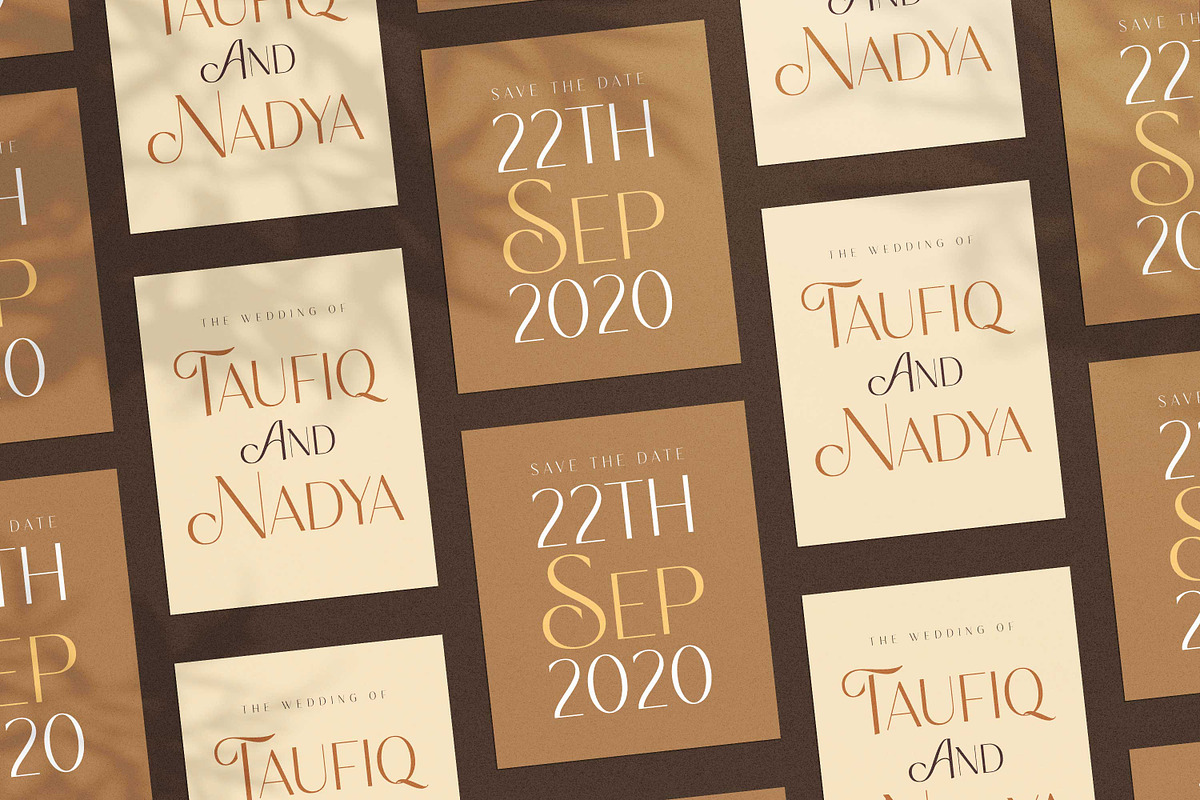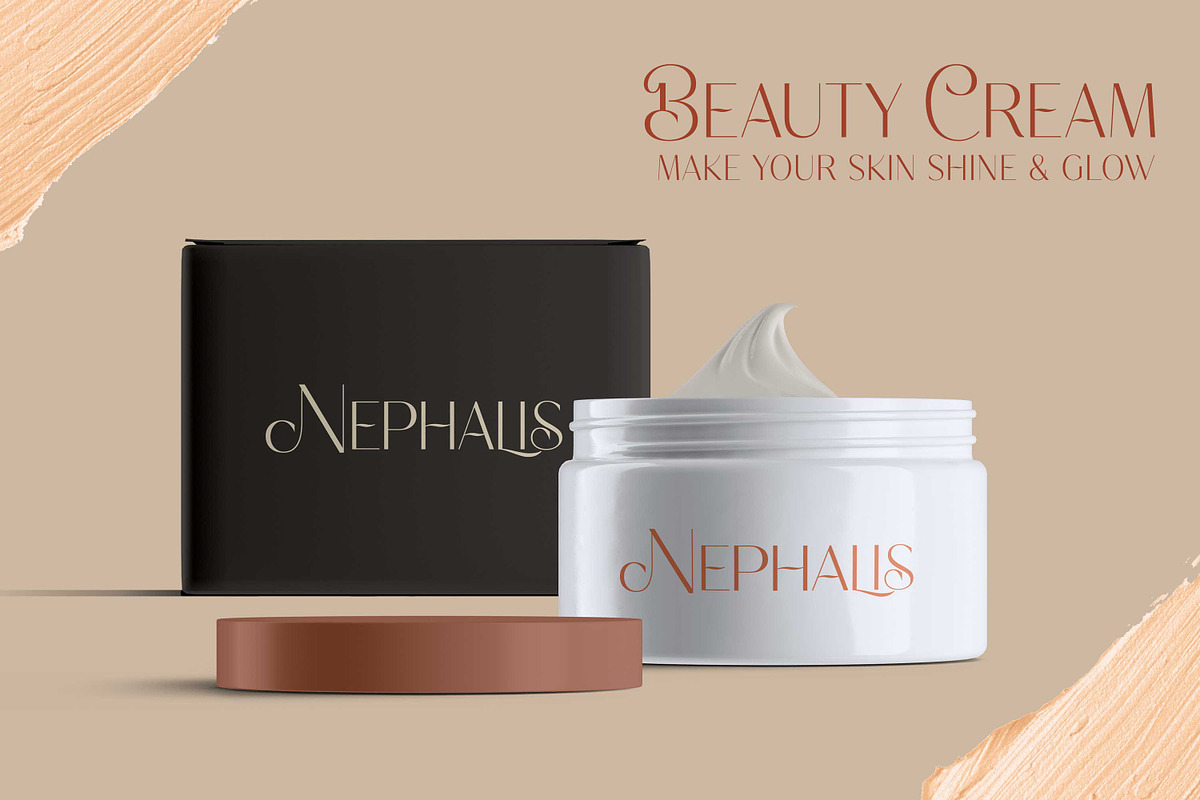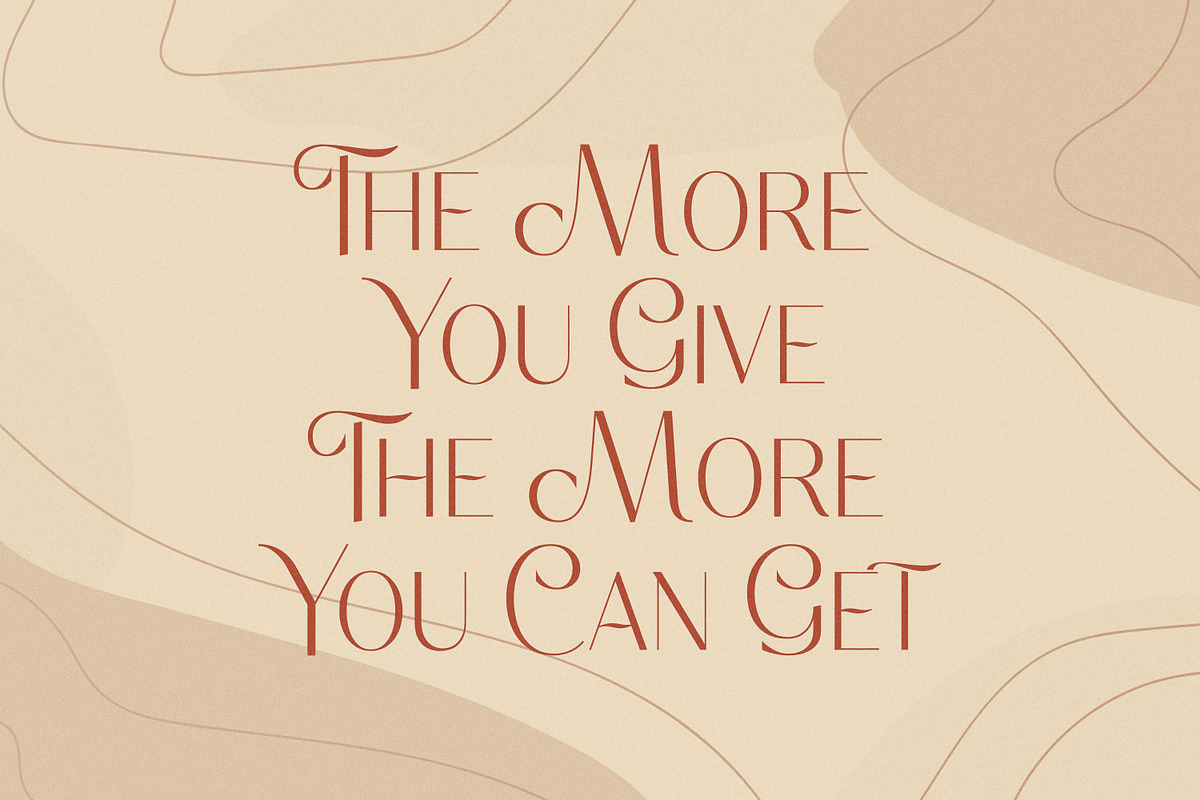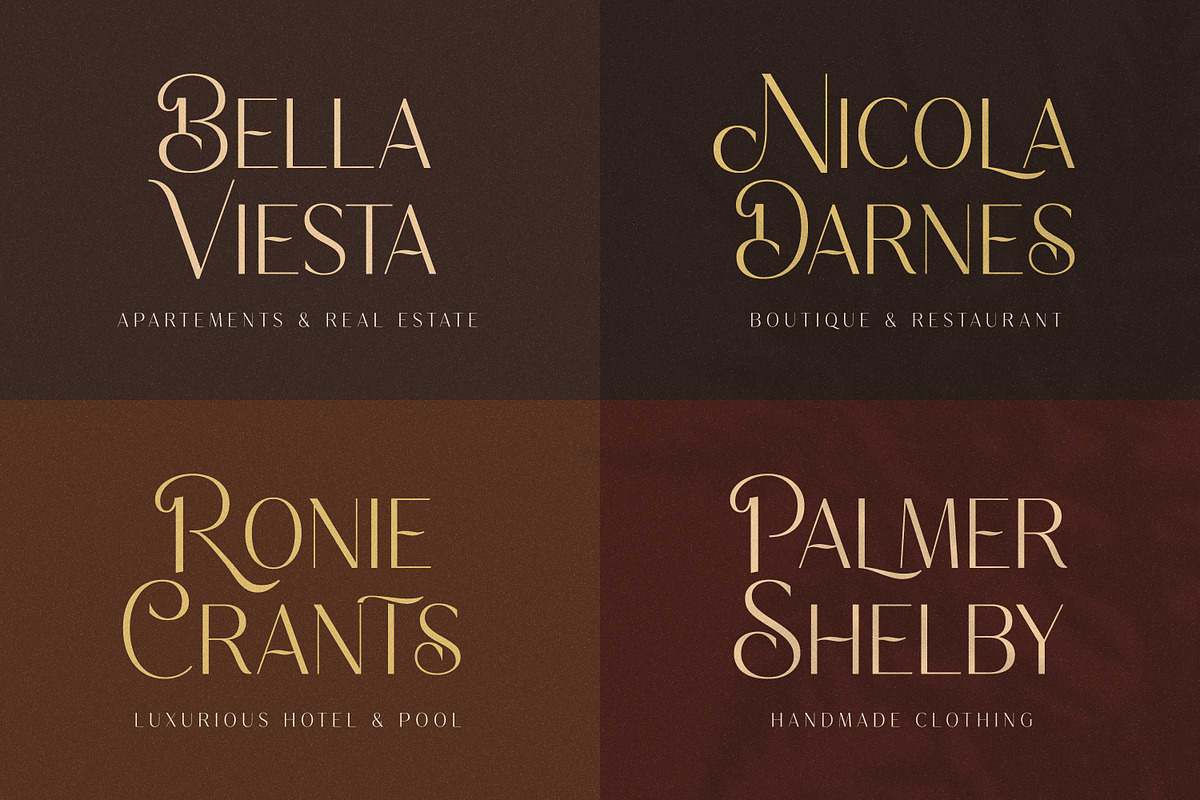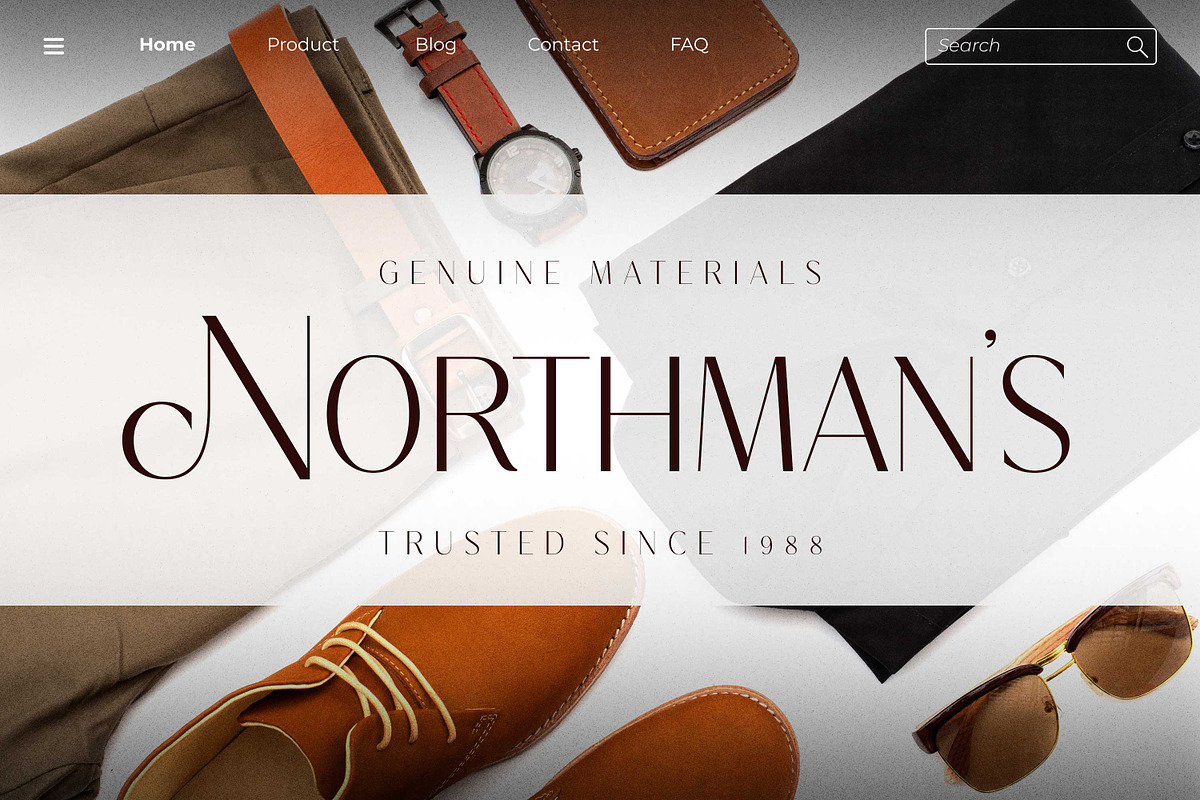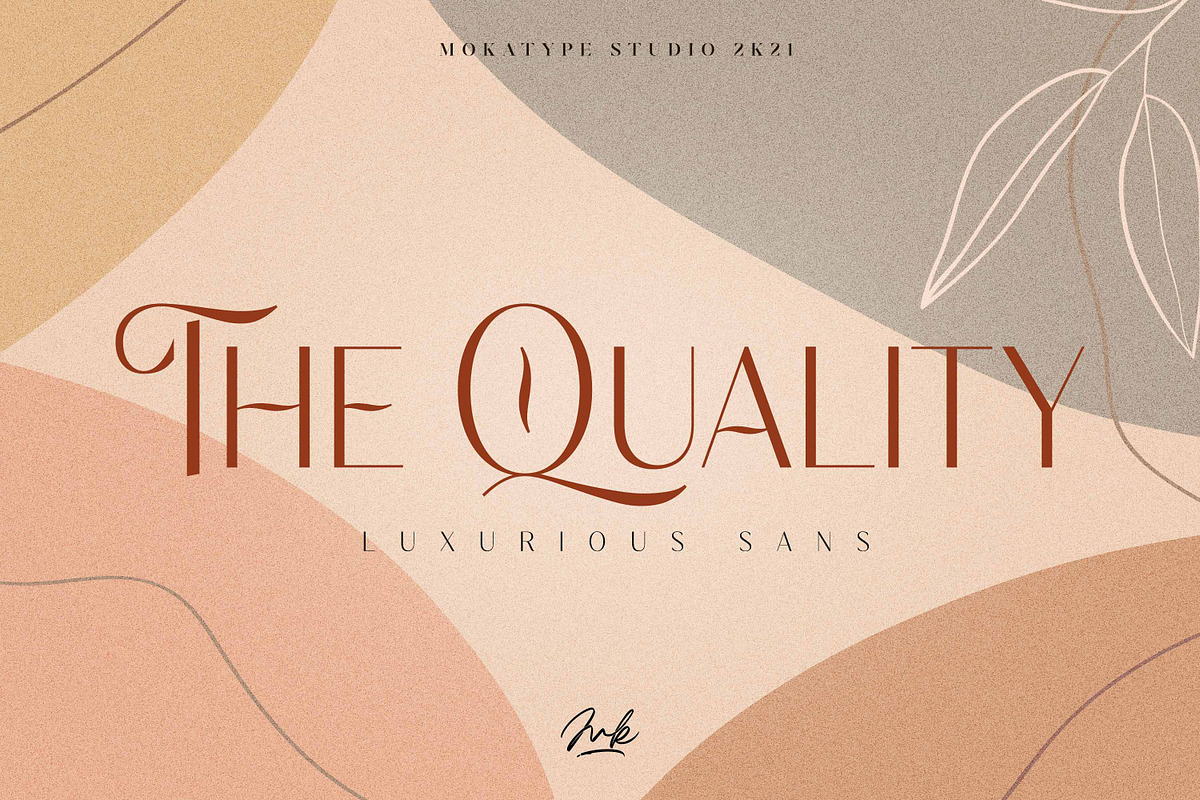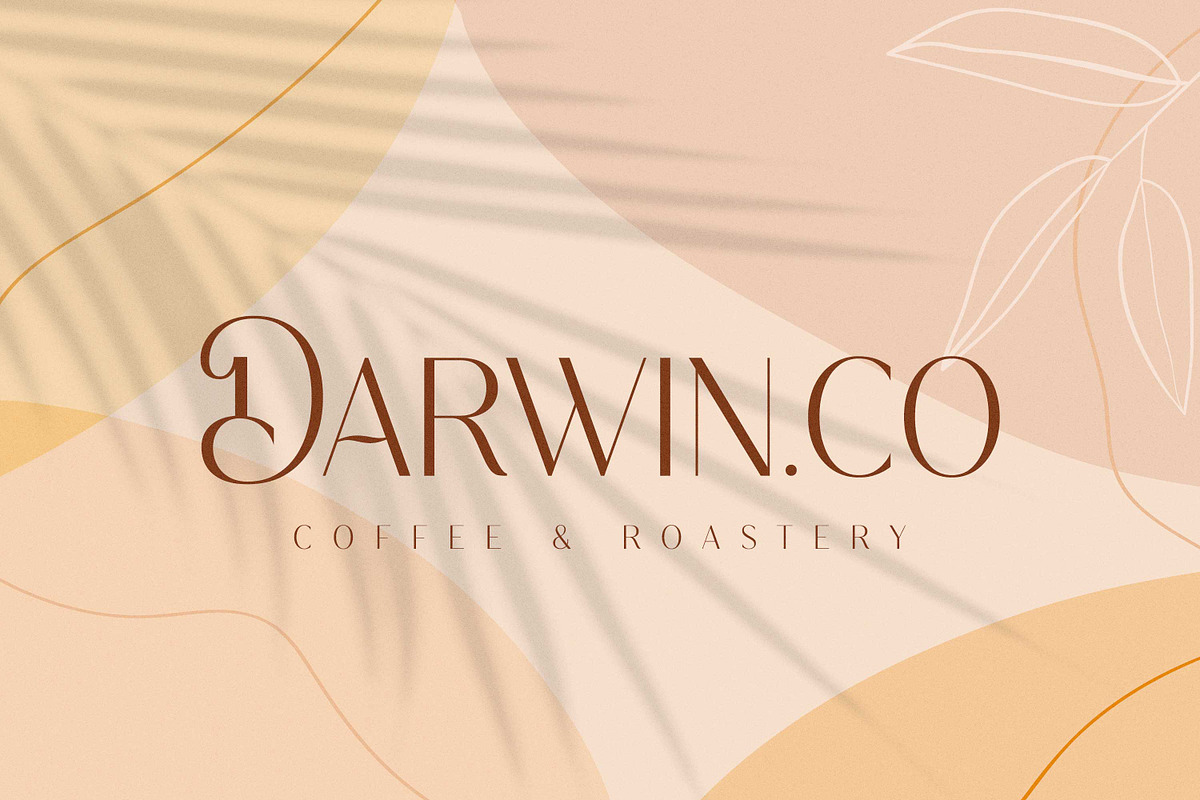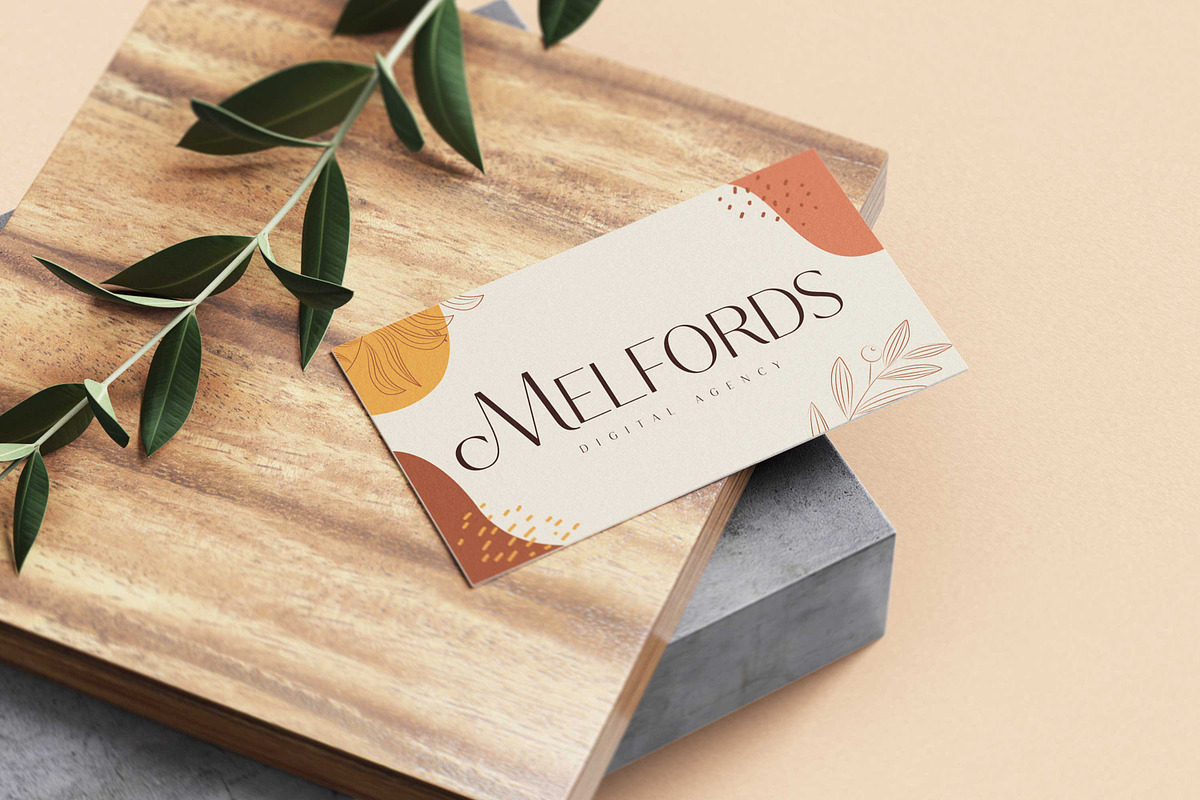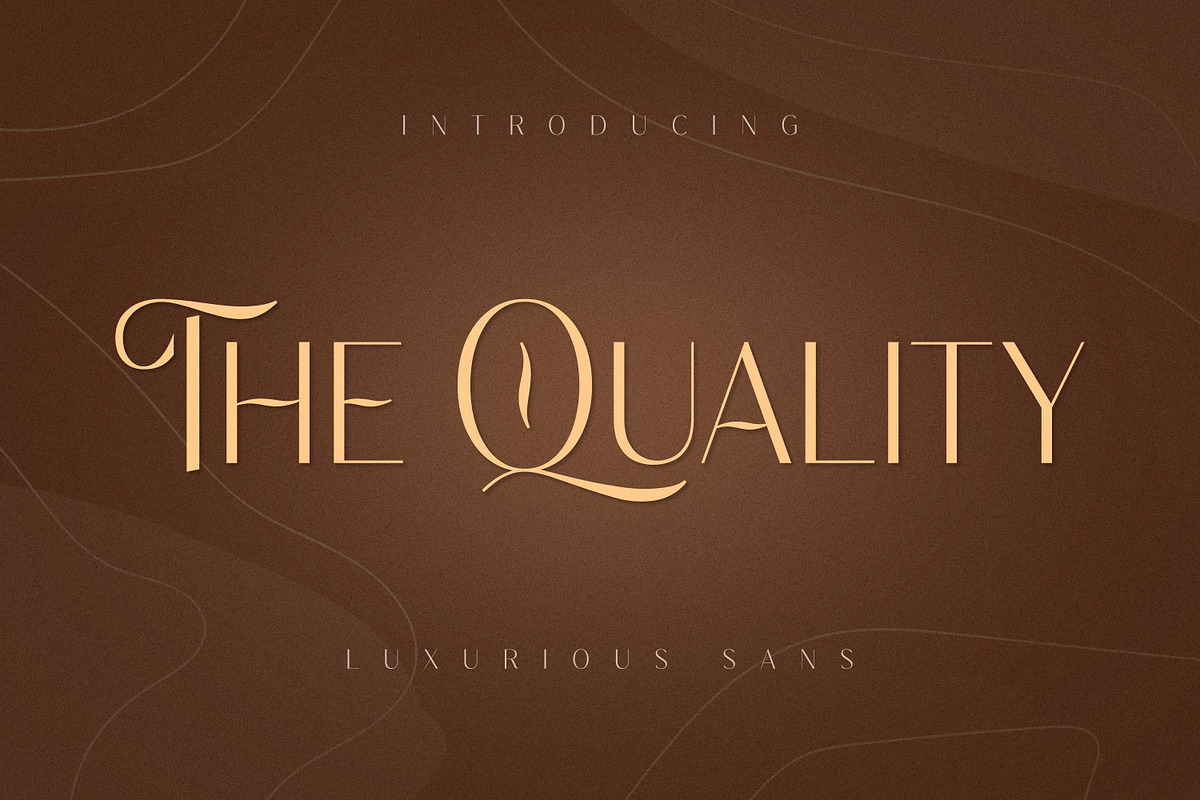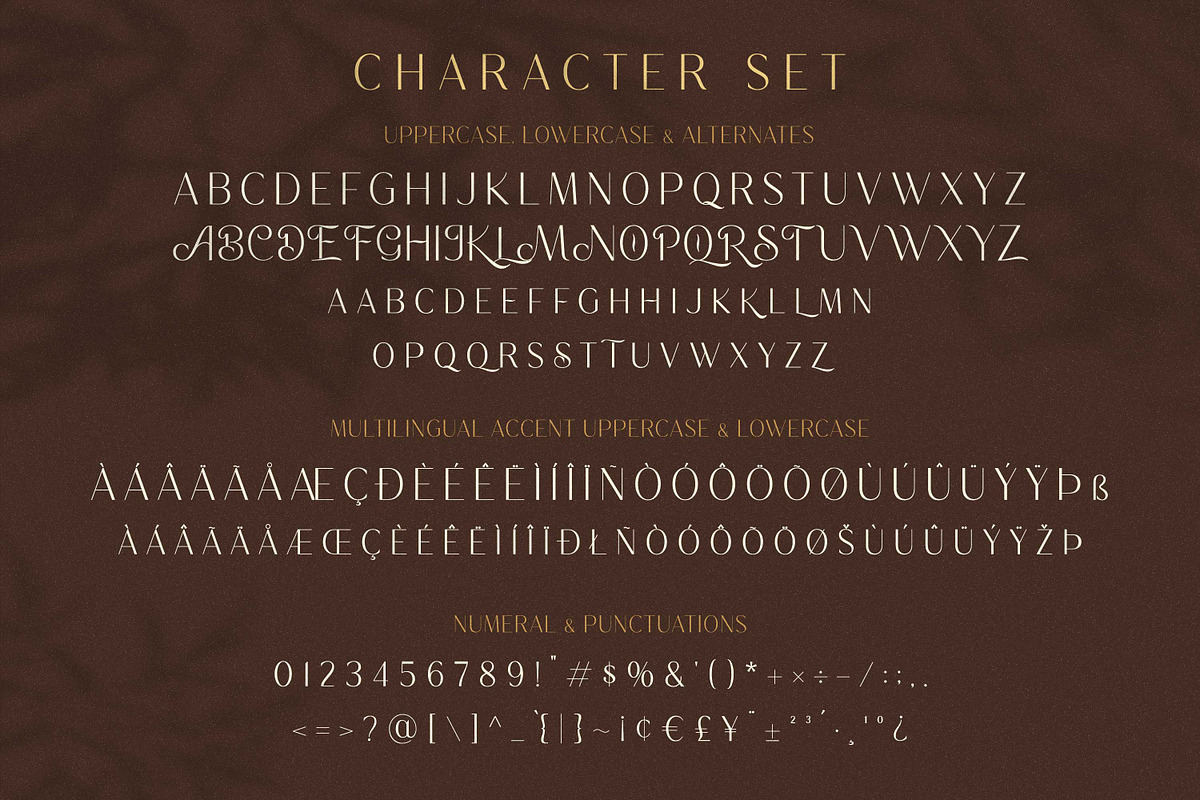
The Quality - Luxurious Sans
Hello Introducing, The Quality - Luxurious Sans Display is an elegant, unique font that uses Alternates to smoothly link letters. inspired by the famous minimalist logo, perfect for the purposes of designing templates, brochures, videos, advertising branding, logos, and more. Perfect for adding a unique twist to word-mark logos, monograms or pull quotes. What's Included :
- Alternate glyphs